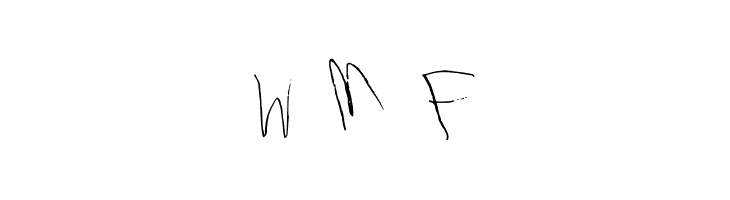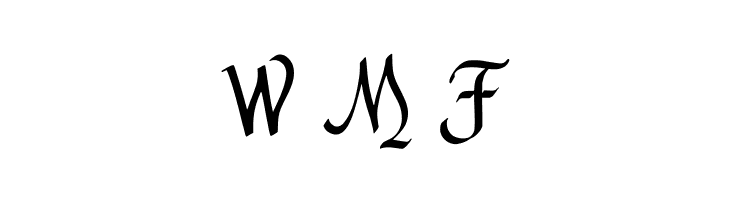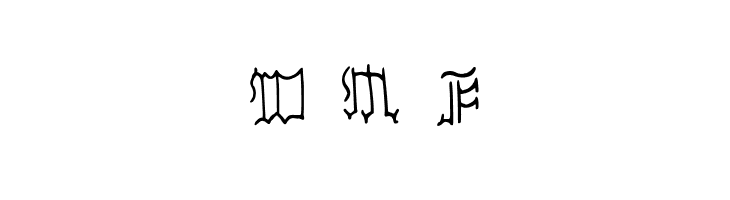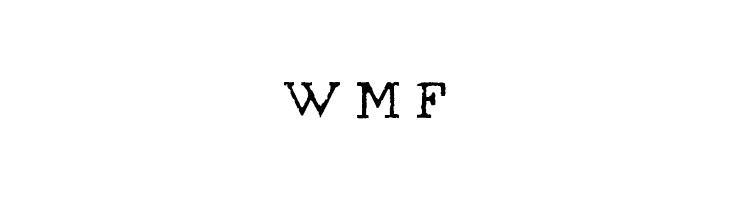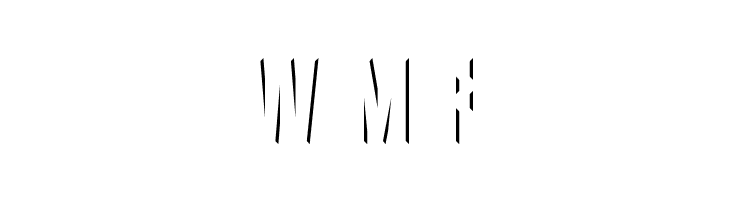
A casual, handwritten font with irregular, organic strokes.
A playful, hand-drawn font with irregular, organic lines.
A playful, hand-drawn font with rounded, irregular characters.
A calligraphic font with medieval-inspired, angular strokes and ornate details.
A playful, hand-drawn font with irregular strokes and a whimsical style.
An intricate blackletter font with ornate, angular letterforms.
A vintage typewriter-style font with textured, irregular strokes.
A 3D geometric font with angular, linear outlines creating a modern, futuristic look.
A classic Gothic-style font with ornate, angular characters and decorative serifs.
A modern, stencil-inspired font with sharp, angular cuts and dynamic negative space.